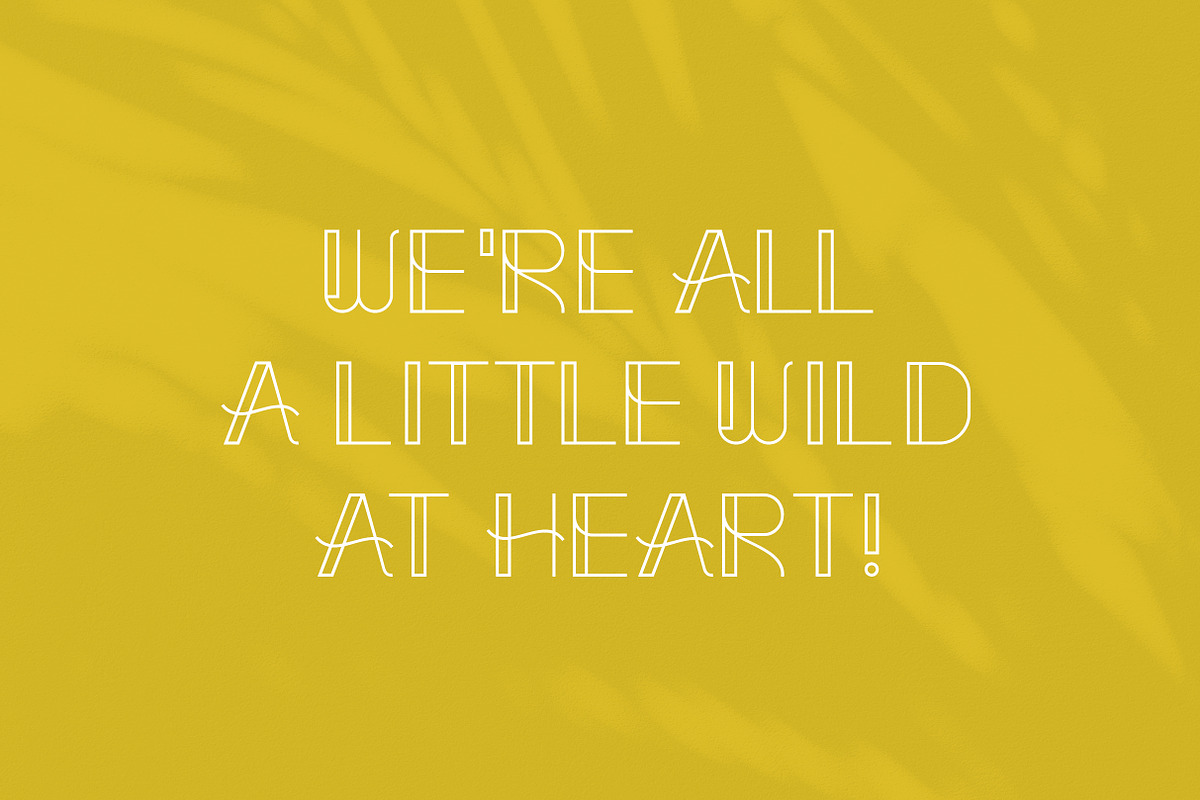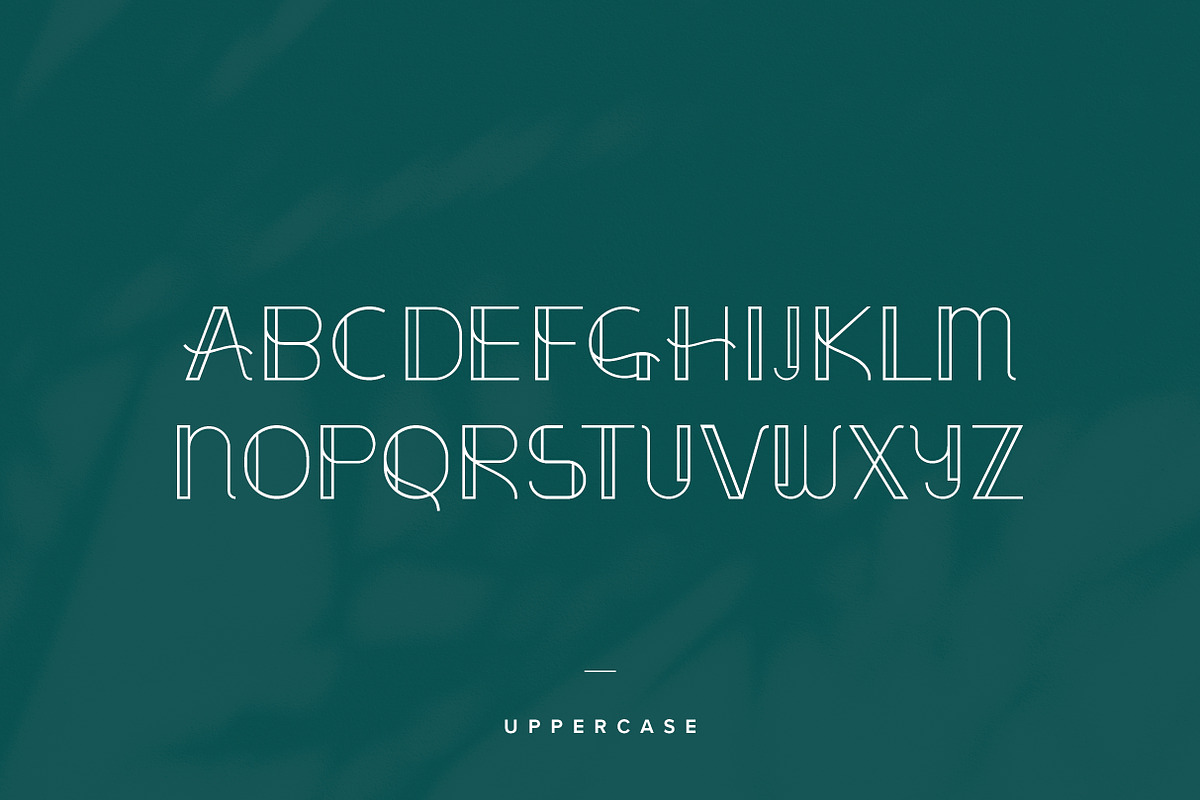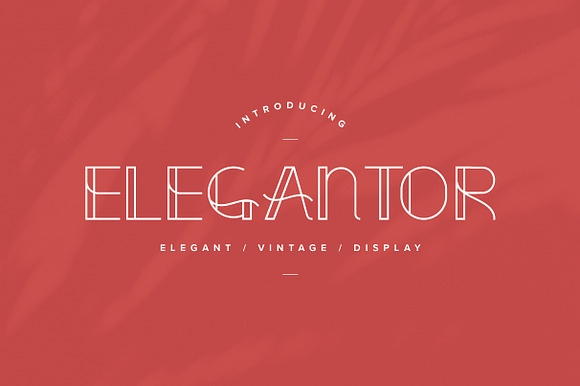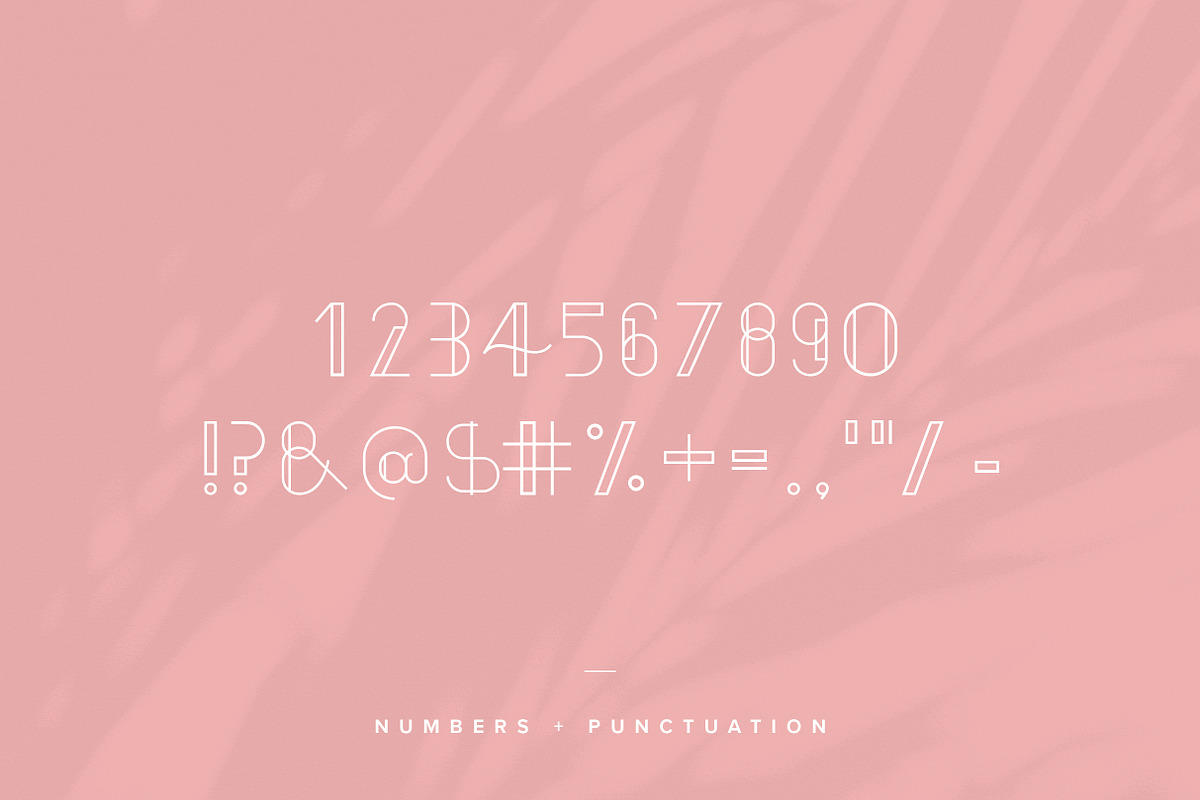
Elegantor | Vintage Display Font
Elegantor - an elegant vintage inspired display font.
This font is a vintage inspired yet uniquely modern display font. It is perfect for elegant, decorative headlines, or why not try it out as a beautiful logotype. Please note that this font only includes Uppercase.
Elegantor | Vintage Display Font by The Wild Now fits naturally into Branding, posters, packaging, typography.